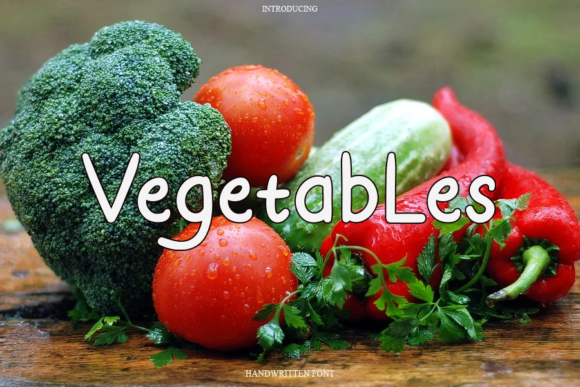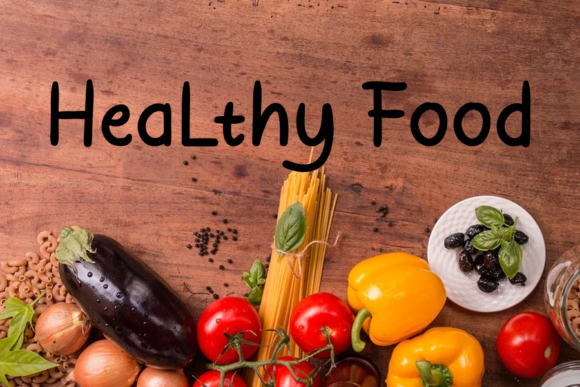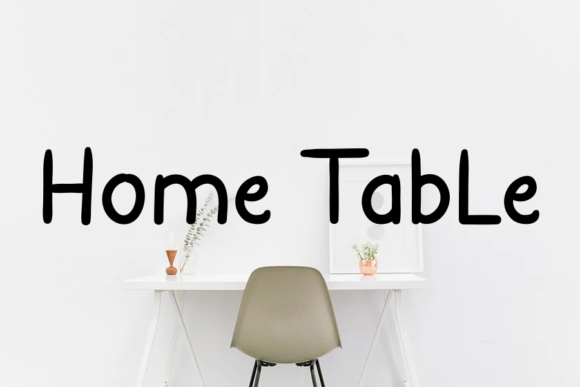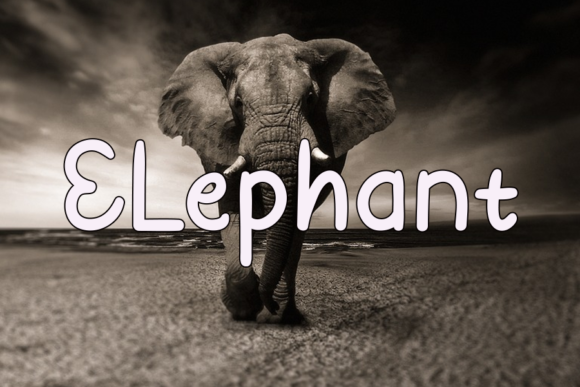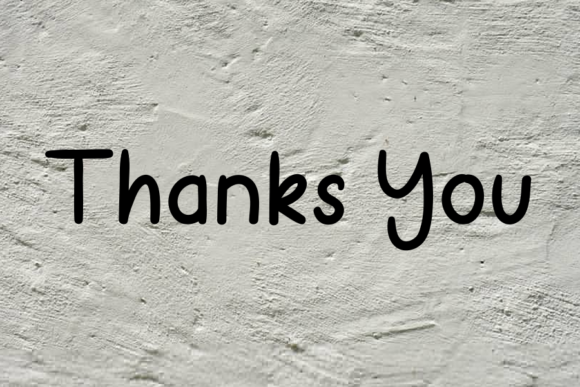
Vegetables Font
About Vegetables Font
Vegetables is a cute, simple, and neat handwritten font that adds a touch of charm and versatility to your designs. With its clean and legible style, this font can easily be matched to a wide range of projects, making it a valuable addition to your creative ideas.
The adorable and well-crafted letterforms of Vegetables bring a sense of playfulness and simplicity to your designs. Whether you’re working on logos, branding materials, invitations, posters, social media graphics, or any other project that requires a cute and clean look, this font will elevate your designs and make them stand out.
Vegetables’ simplicity and versatility make it a great choice for various applications. It can be easily paired with different design elements, allowing it to adapt to different project styles and themes. Whether you want to create a fun and playful logo for a food-related business, design clean and elegant invitations for a special event, or craft eye-catching posters with a touch of cuteness, Vegetables will provide you with the flexibility and legibility you need.
Embrace the cuteness, simplicity, and neatness of Vegetables and let it enhance your creative ideas. Incorporate this font into your designs, and you’ll notice how it adds a delightful and charming touch that makes them stand out.